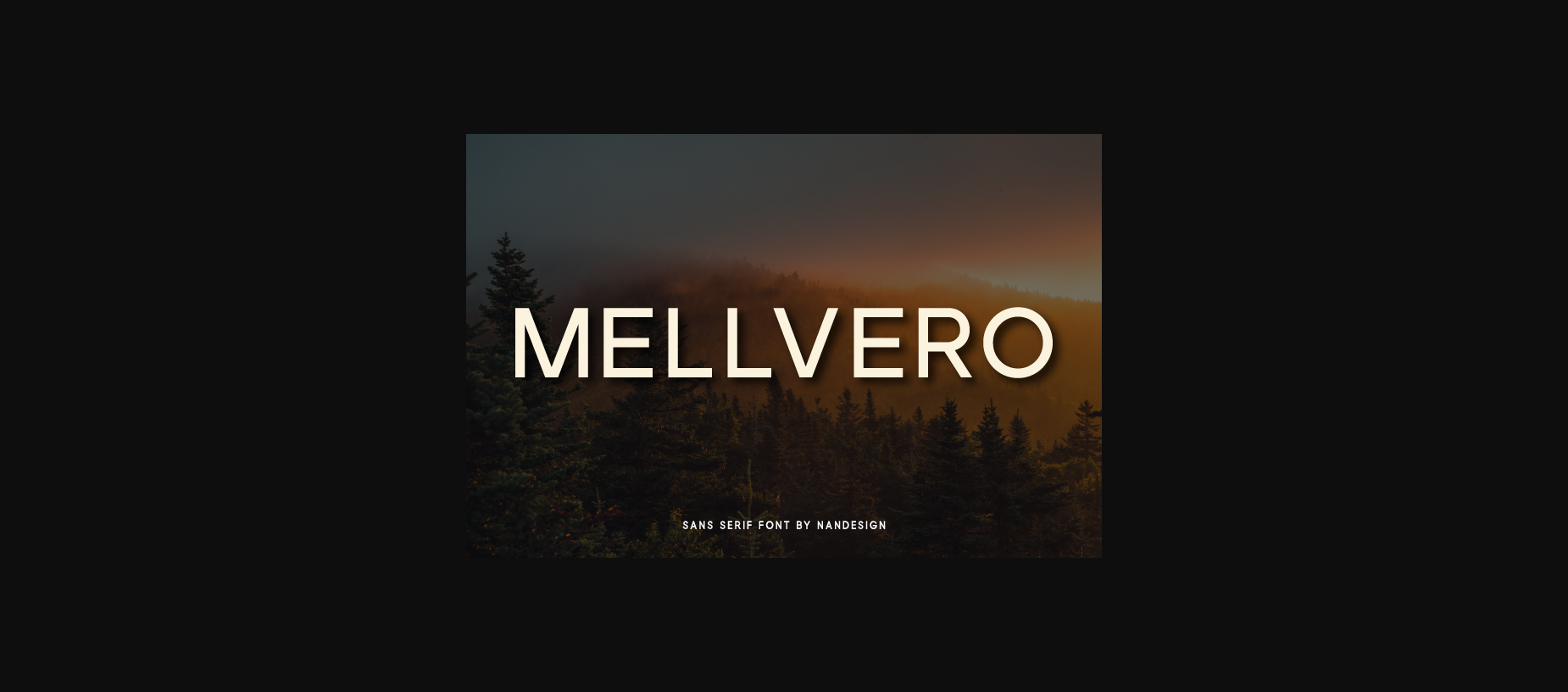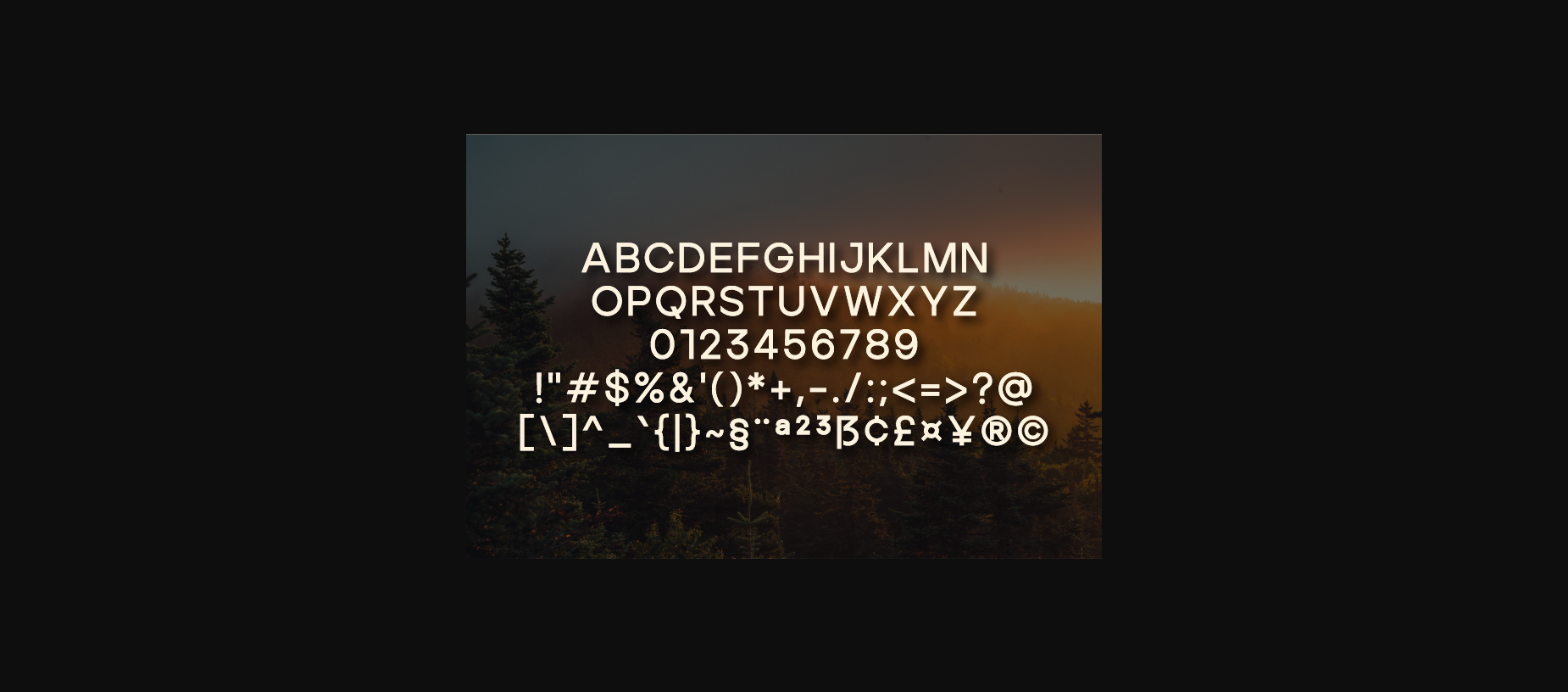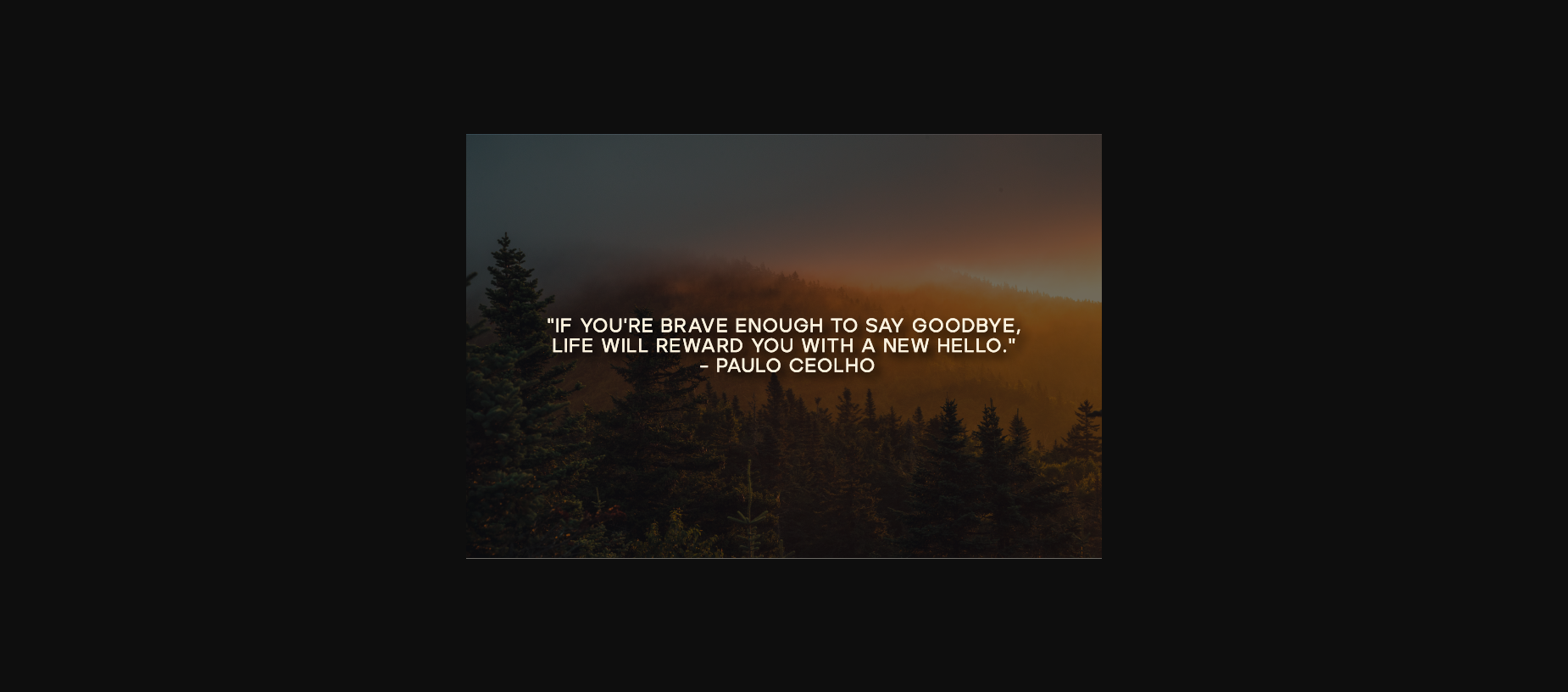
HomeSans Serif FontsMellvero Font Sans Serif Fonts Mellvero Font FacebookXPinterestWhatsApp 1 of 5 ... Mellvero Font Poster 2... Mellvero Font Poster 3... Mellvero Font Poster 4... Mellvero Font Poster 5... About Mellvero Font Mellvero is a minimal and neat sans serif font. It can easily be matched to an incredibly large set of projects, so add it to your creative ideas and notice how it makes them stand out! DOWNLOAD NOW People also explored Cute Lettering Font Storynight Font Simple Night Font Sinffonia Silver & Stardust Duo Font Love December Font Handmade Font Idenburg Font Alidad Font 300 0 TagsMellvero Font Previous articleFretea FontNext articleProvenn Font LEAVE A REPLY Cancel reply Comment: Please enter your comment! Name:* Please enter your name here Email:* You have entered an incorrect email address! Please enter your email address here Website: Save my name, email, and website in this browser for the next time I comment. Personal Use Free Rare Knuckle Personal Use Free Read more about this font Klotee Personal Use Free Read more about this font Cheque Personal Use Free Read more about this font Angelia Personal Use Free Read more about this font BLOG How to Cut Any Font on Cricut: Convert a Font to SVG (Free) Turn any font into a clean SVG so it cuts crisp on Cricut - a quick 3-step workflow using a free font-to-SVG tool. Top 10 Handwritten Fonts That Elevate Your Designs Best Fonts for YouTube Videos: Make Your Thumbnails Stand Out To increase your work productivity, choose the most readable fonts.